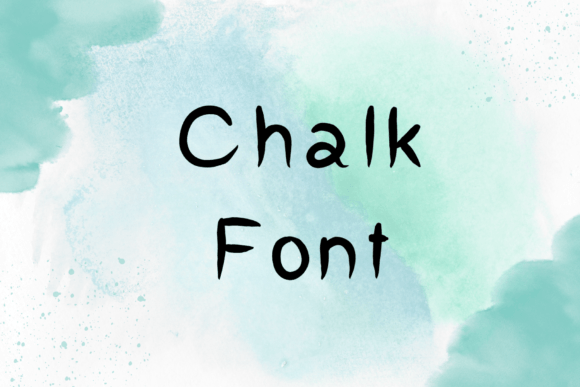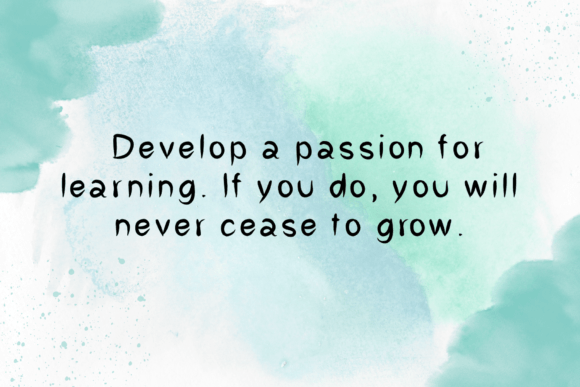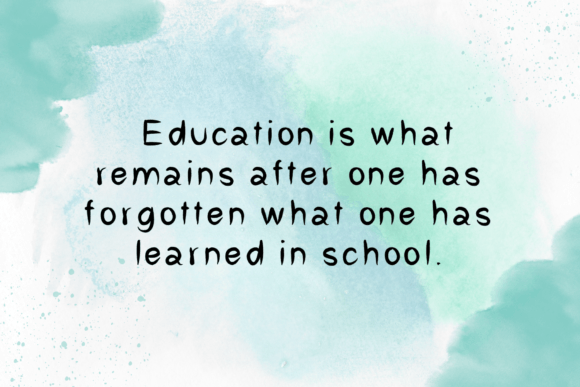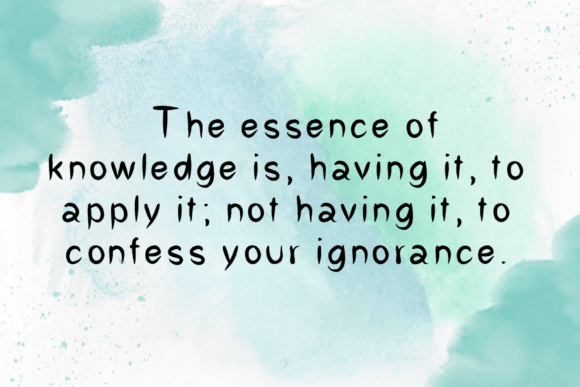
About Chalk Font
Chalk is an endearing and uncomplicated handwritten font that exudes a delightful charm. Its essence lies in its playful and authentic design, making it an ideal choice for a myriad of applications, particularly well-suited for children’s activities and school projects.
This font’s inherent cuteness adds a whimsical touch to any creative endeavor, capturing the imagination with its friendly and approachable style. Its simplicity not only enhances readability but also imparts a genuine and unpretentious feel, fostering a connection with the audience.
The appeal of Chalk extends beyond mere aesthetics; it serves as a visual representation of lightheartedness and creativity. Its hand-drawn nature brings a touch of warmth to projects, creating an inviting atmosphere that resonates well, especially in educational or child-centric contexts.
Chalk is versatile, lending itself effortlessly to various design elements. Whether used in headlines, body text, or as an accent in visuals, it consistently conveys a sense of fun and authenticity. The font’s adaptability makes it a reliable choice for educators, designers, and anyone seeking to infuse their projects with a whimsical spirit.
In educational settings, Chalk can transform learning materials into engaging and visually appealing resources. Its friendly demeanor encourages participation and sparks curiosity, making it an invaluable asset for teachers and students alike. Furthermore, the font’s handwritten charm imparts a personal touch, fostering a sense of connection and relatability.
For school projects, Chalk becomes a creative companion, elevating presentations and displays with its distinctive character. The font’s playfulness complements the energetic and imaginative nature of childhood, making it a natural fit for conveying information in an accessible and enjoyable manner.
In conclusion, Chalk is more than just a font; it’s a design choice that brings forth a world of creativity, simplicity, and authenticity. Its adorable and handwritten style transforms ordinary projects into captivating experiences, making it a delightful option for anyone looking to infuse their work with a touch of charm and playfulness.